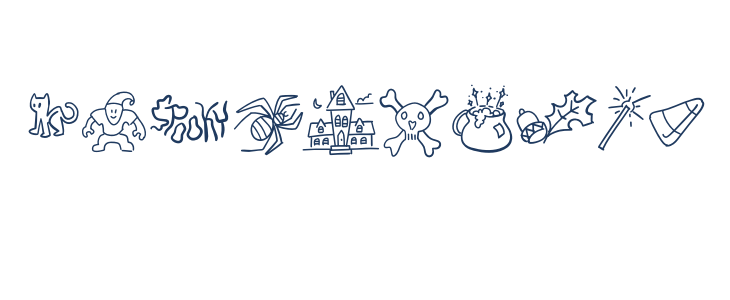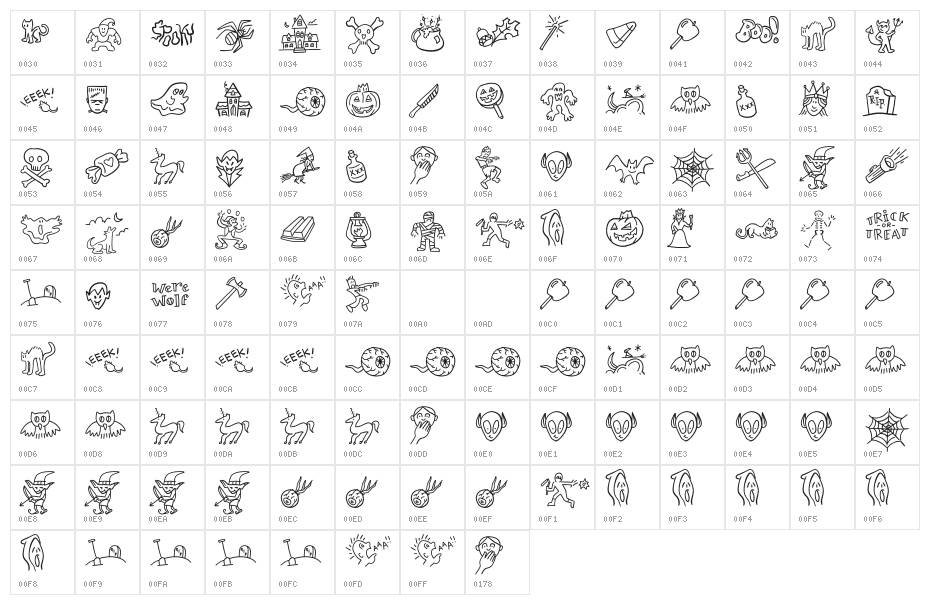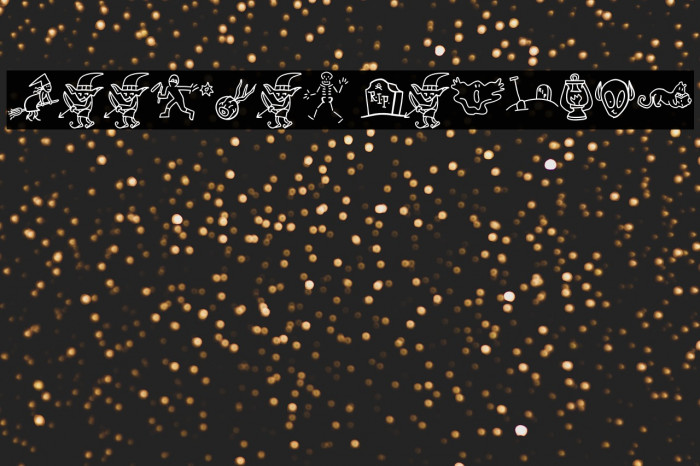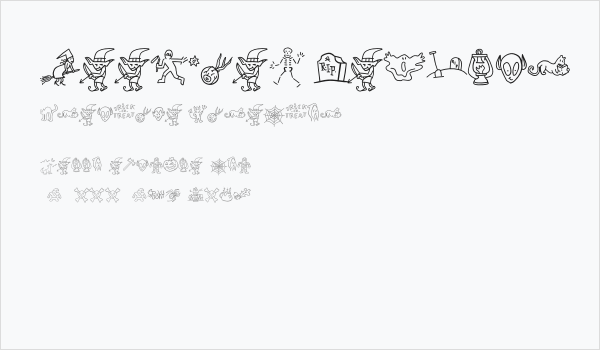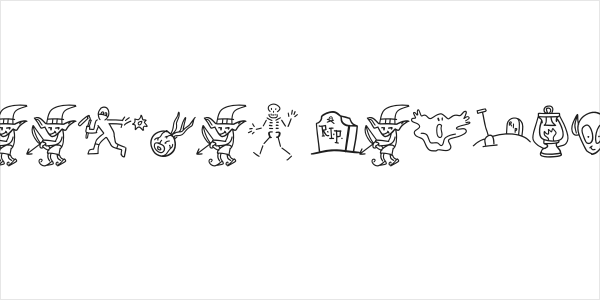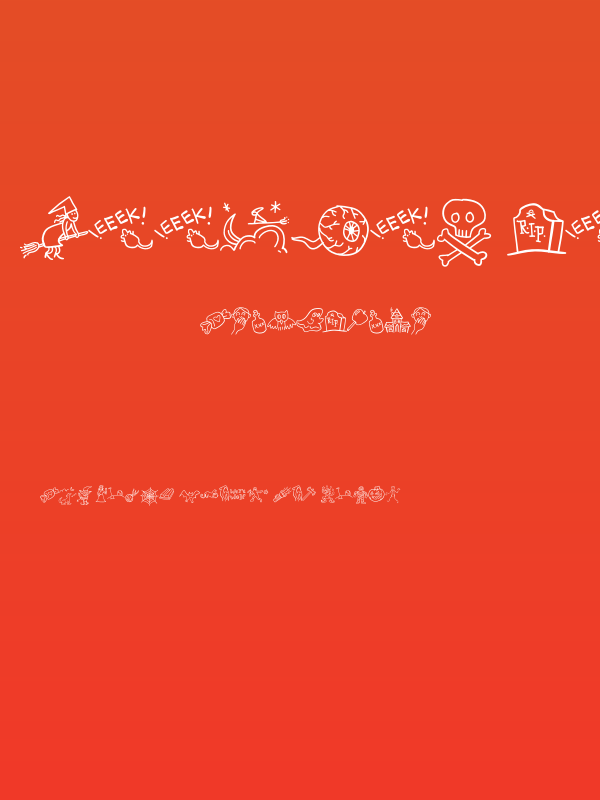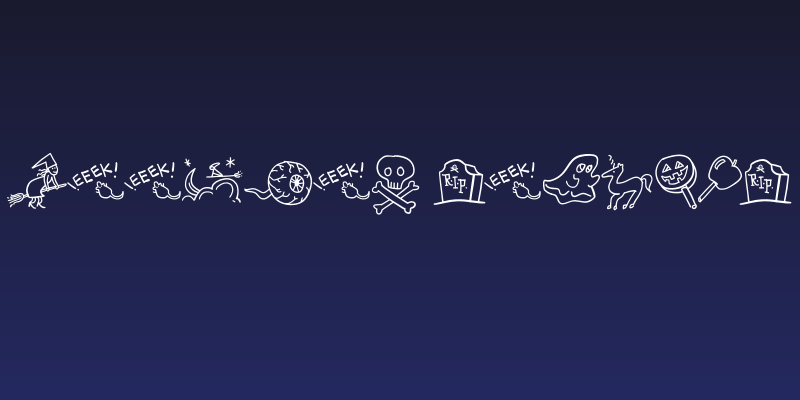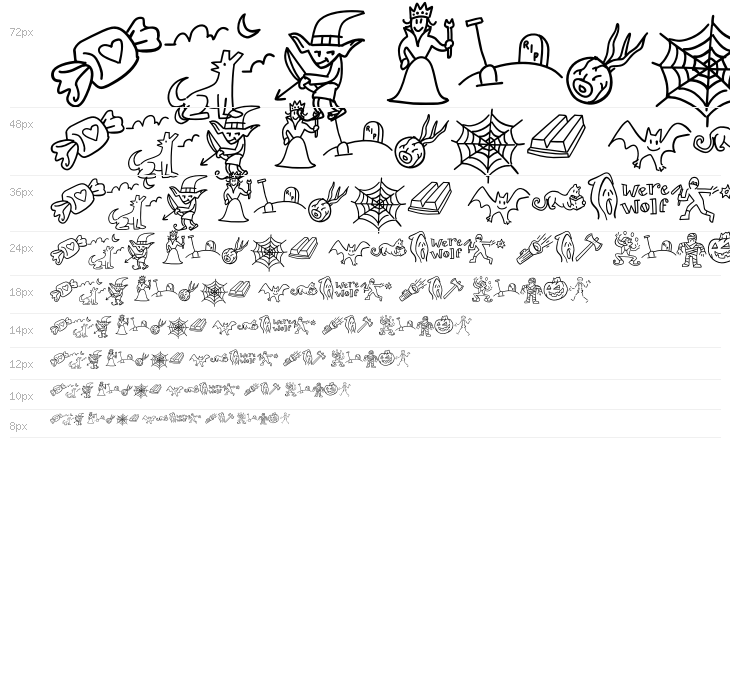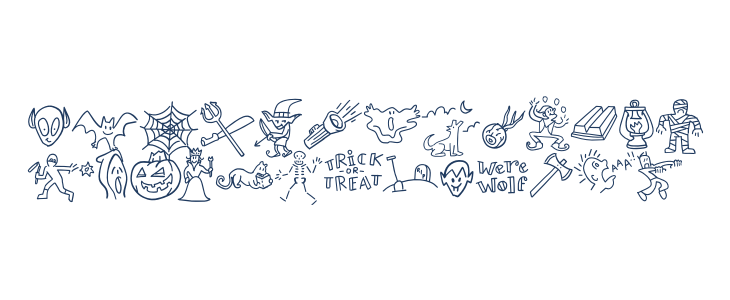
Weenies Regular Font
Weenies Regular Description
This font is a playful and whimsical collection of Halloween-themed illustrations. Each character is represented by a unique doodle, including ghosts, pumpkins, bats, witches, and other spooky elements. The style is hand-drawn and cartoonish, with a light-hearted and fun approach to the Halloween theme. The illustrations are detailed yet simple, making them suitable for a variety of creative projects. The overall design is cohesive, with a consistent line weight and style across all characters.
| Use Case | Logos, Headlines, Decorative elements |
| Proposed Projects | Ideal for Halloween party invitations, themed posters, children's books, and festive decorations. |